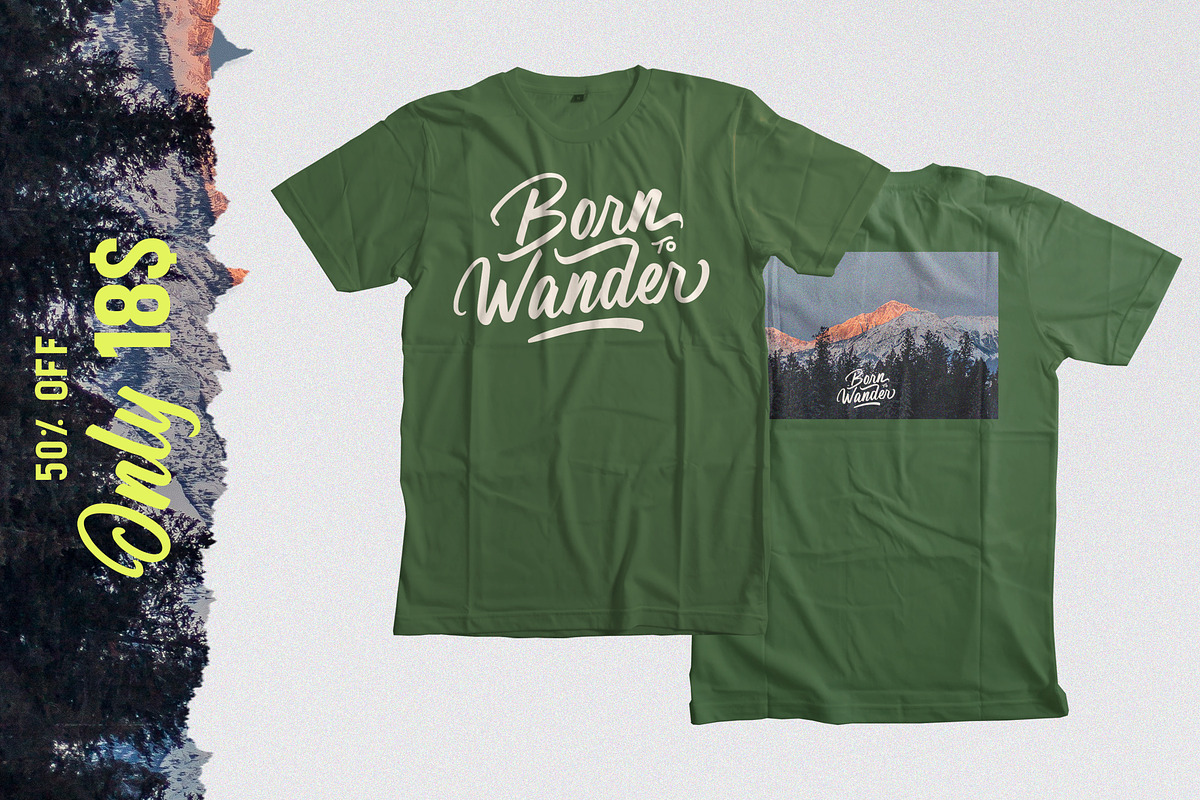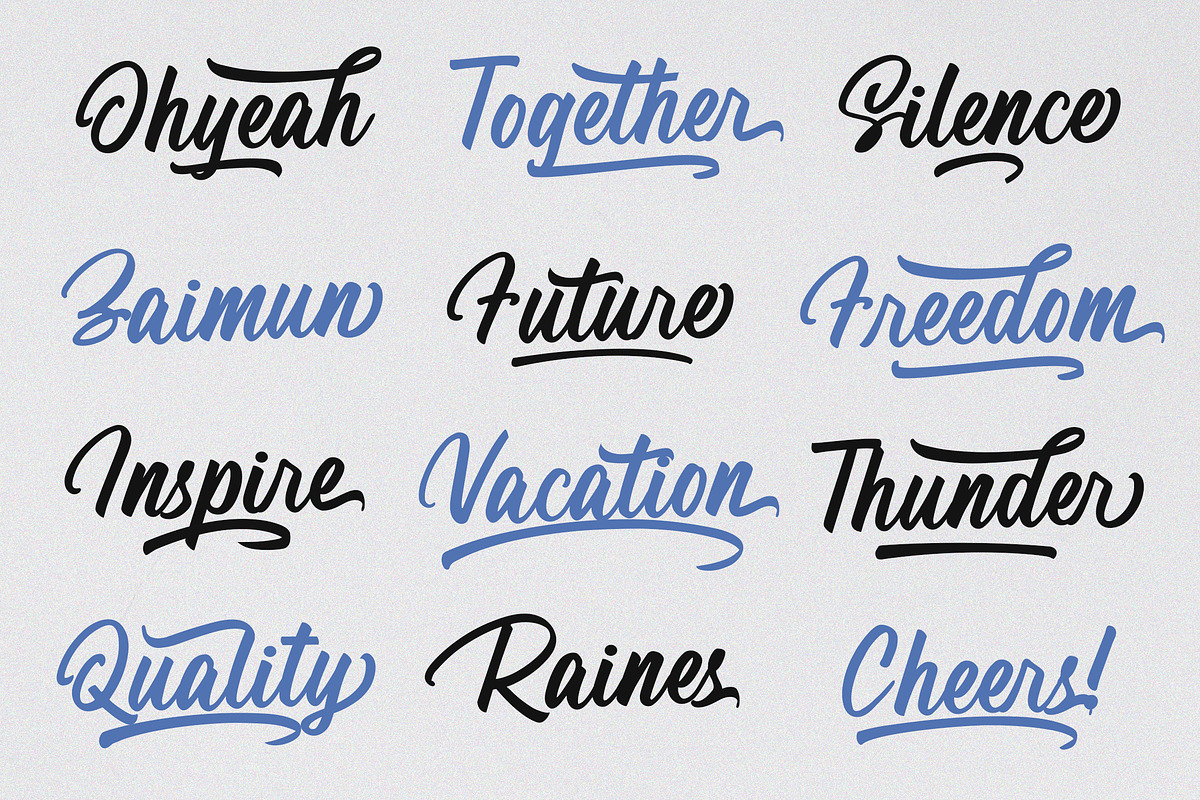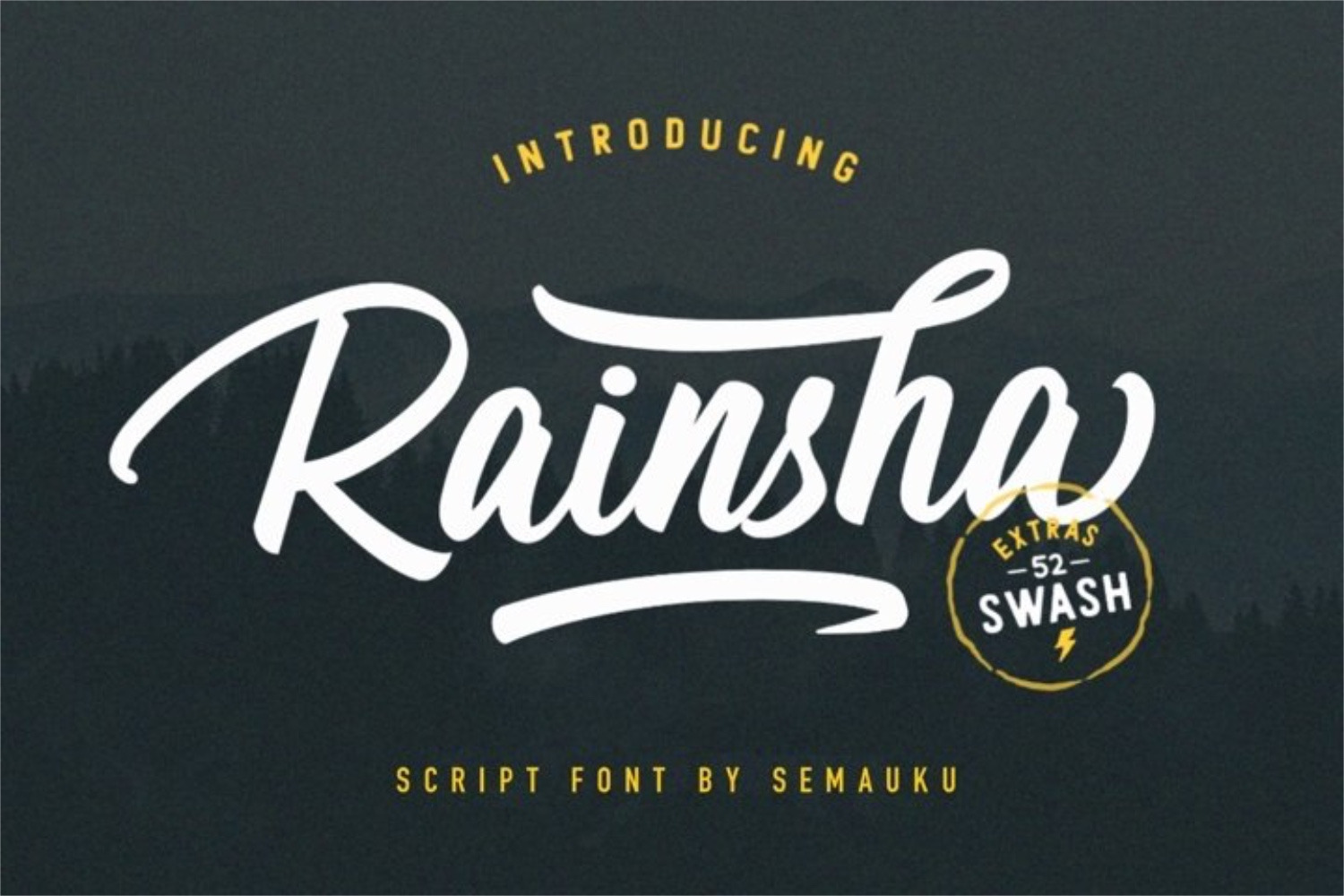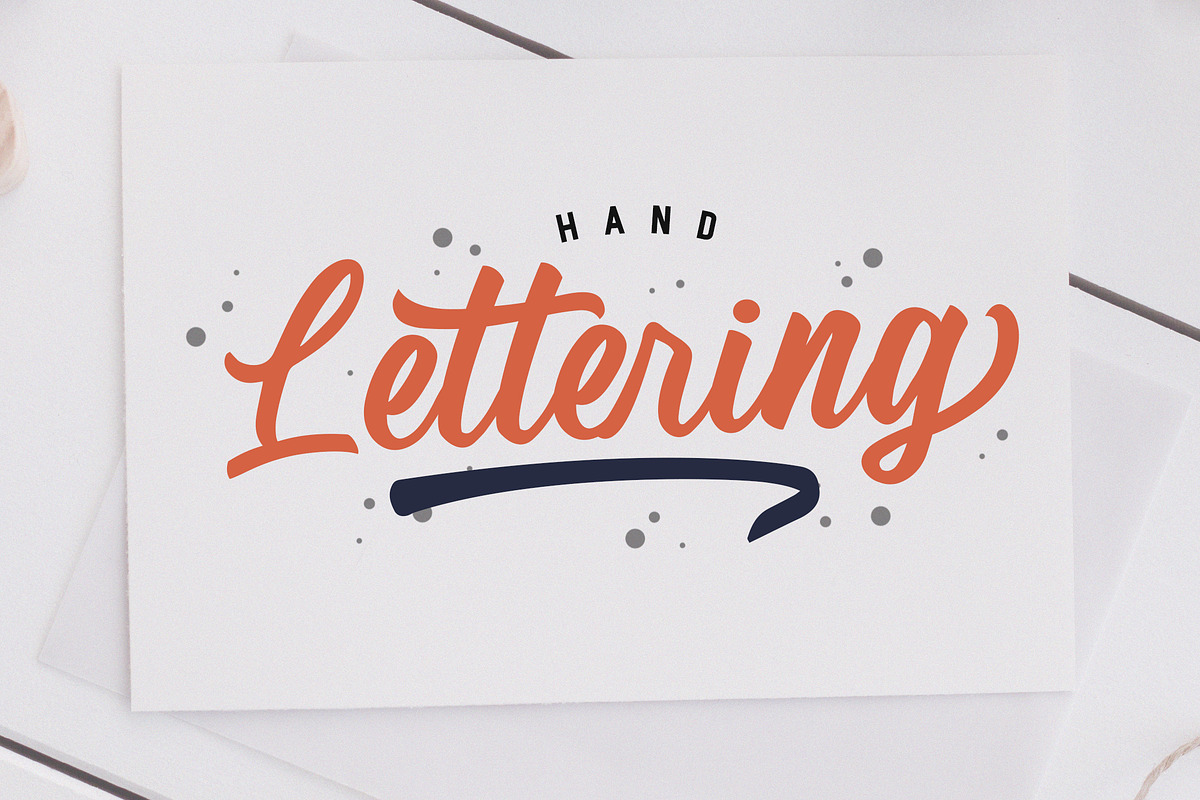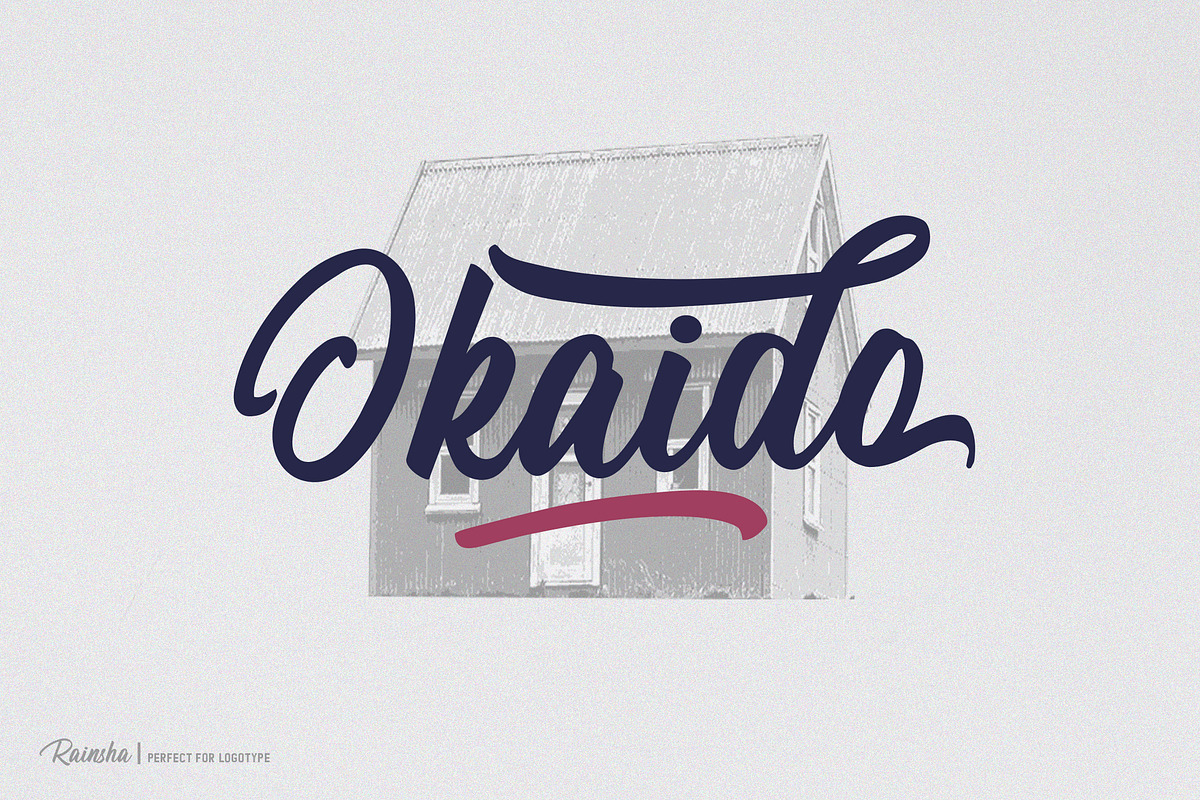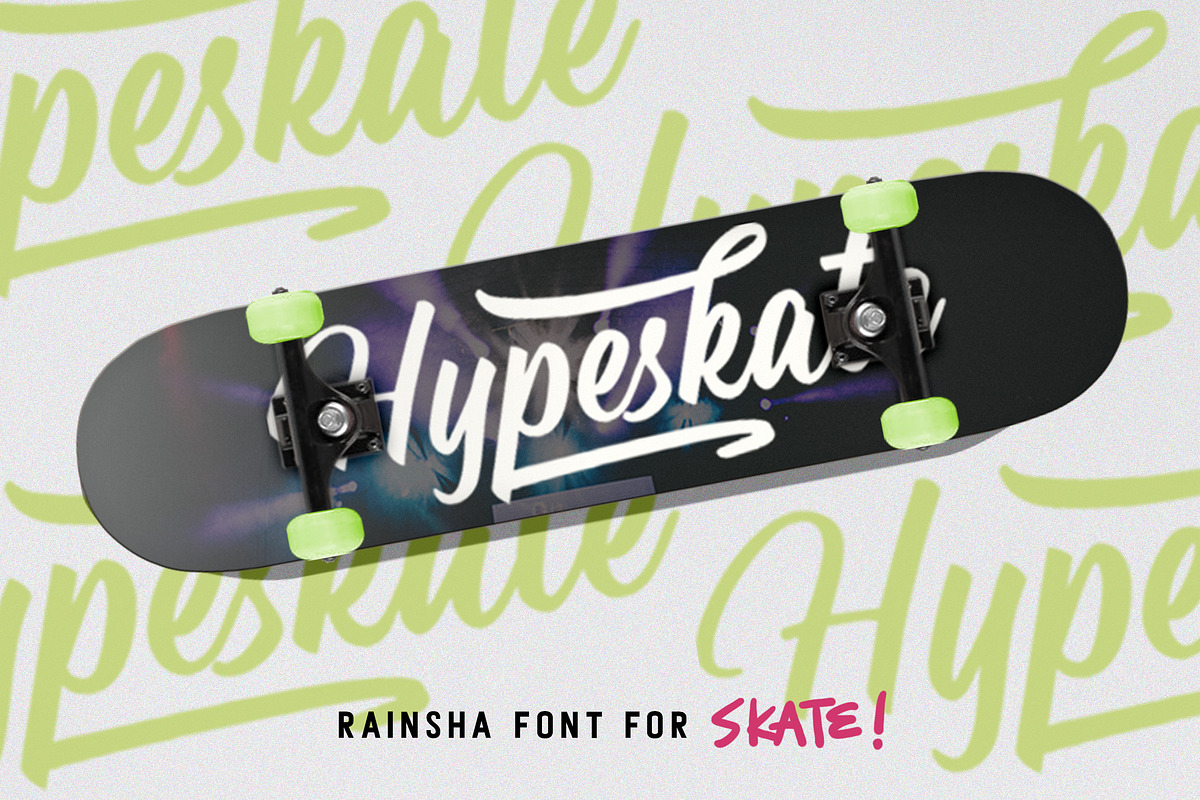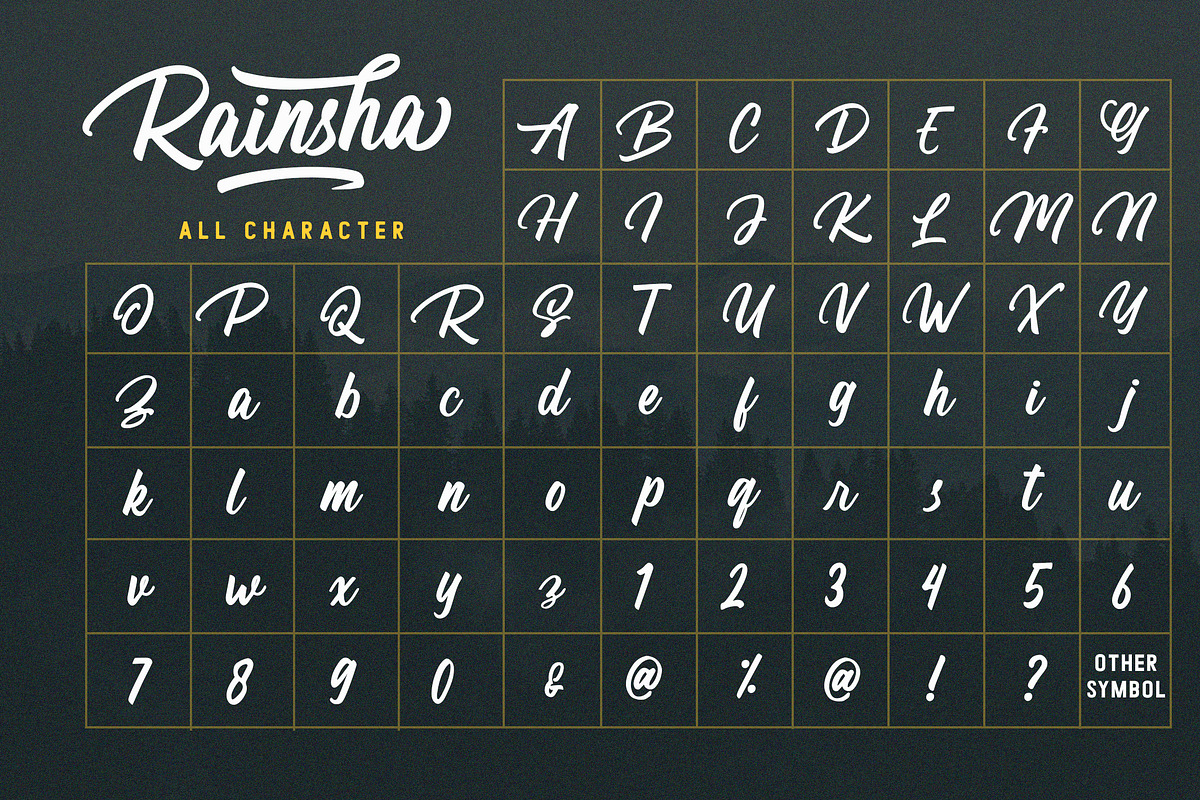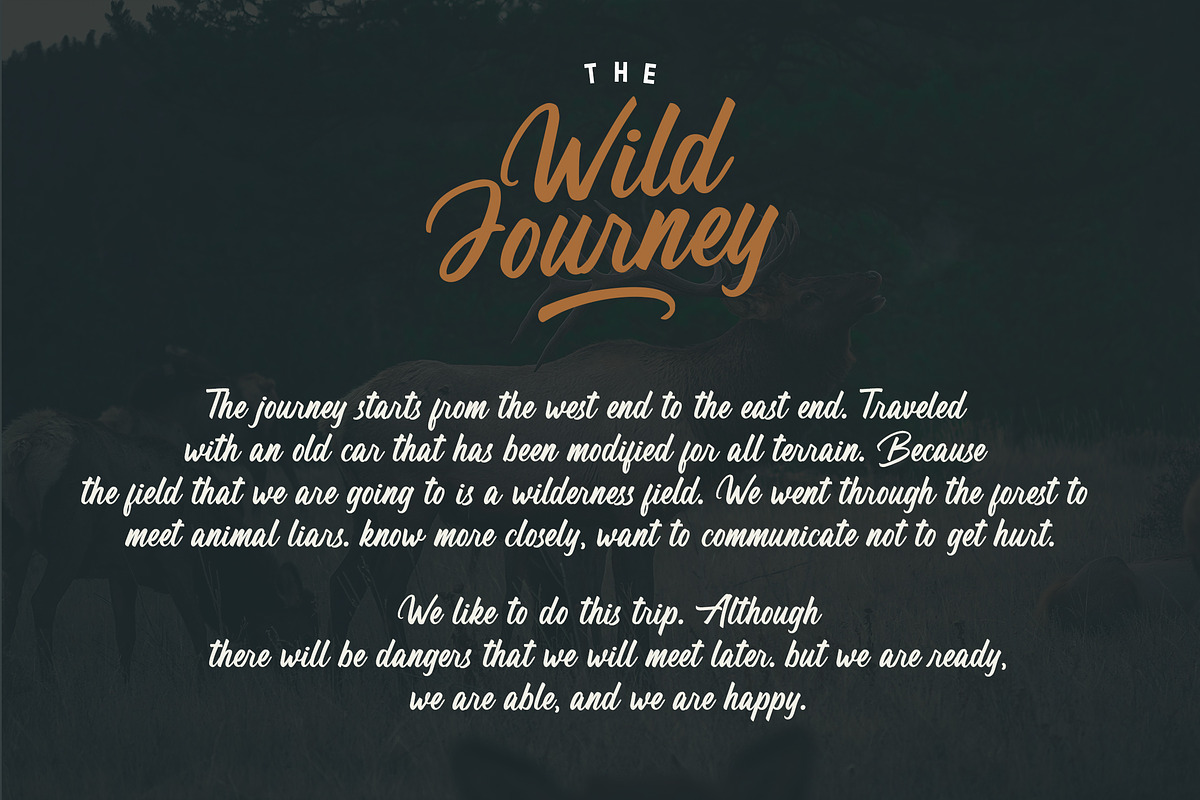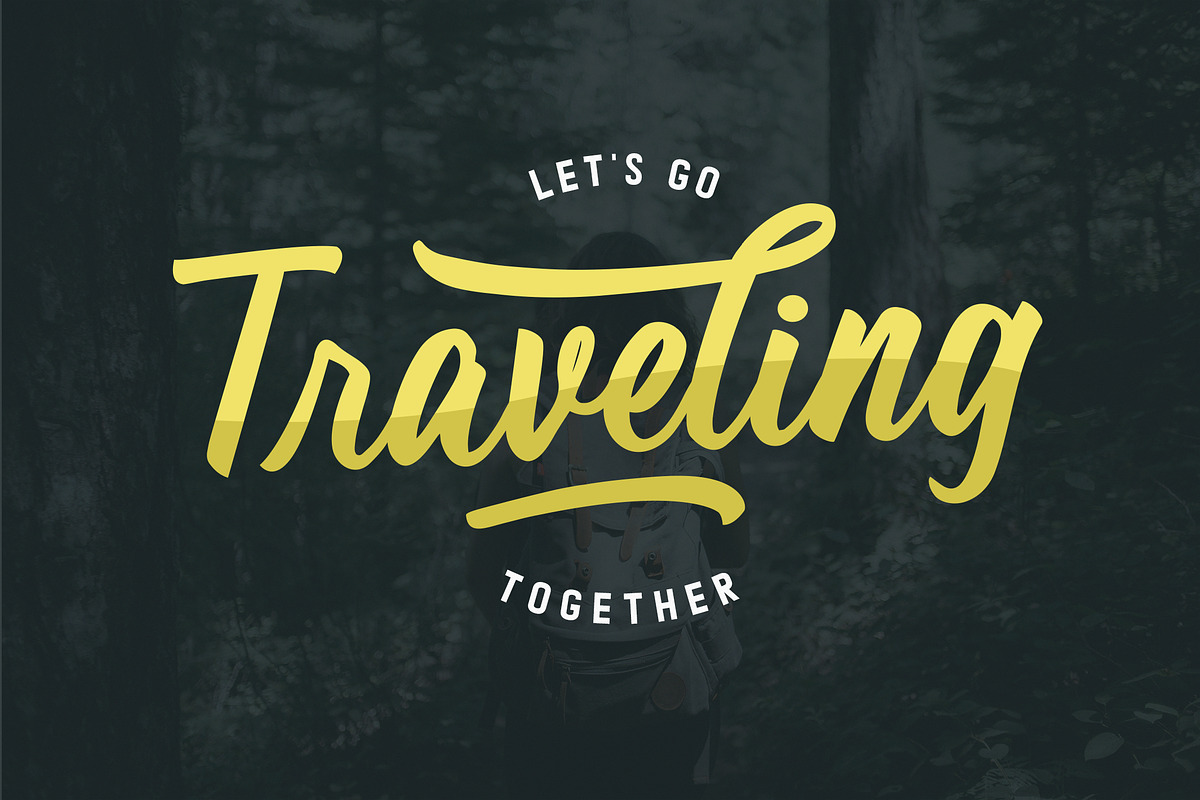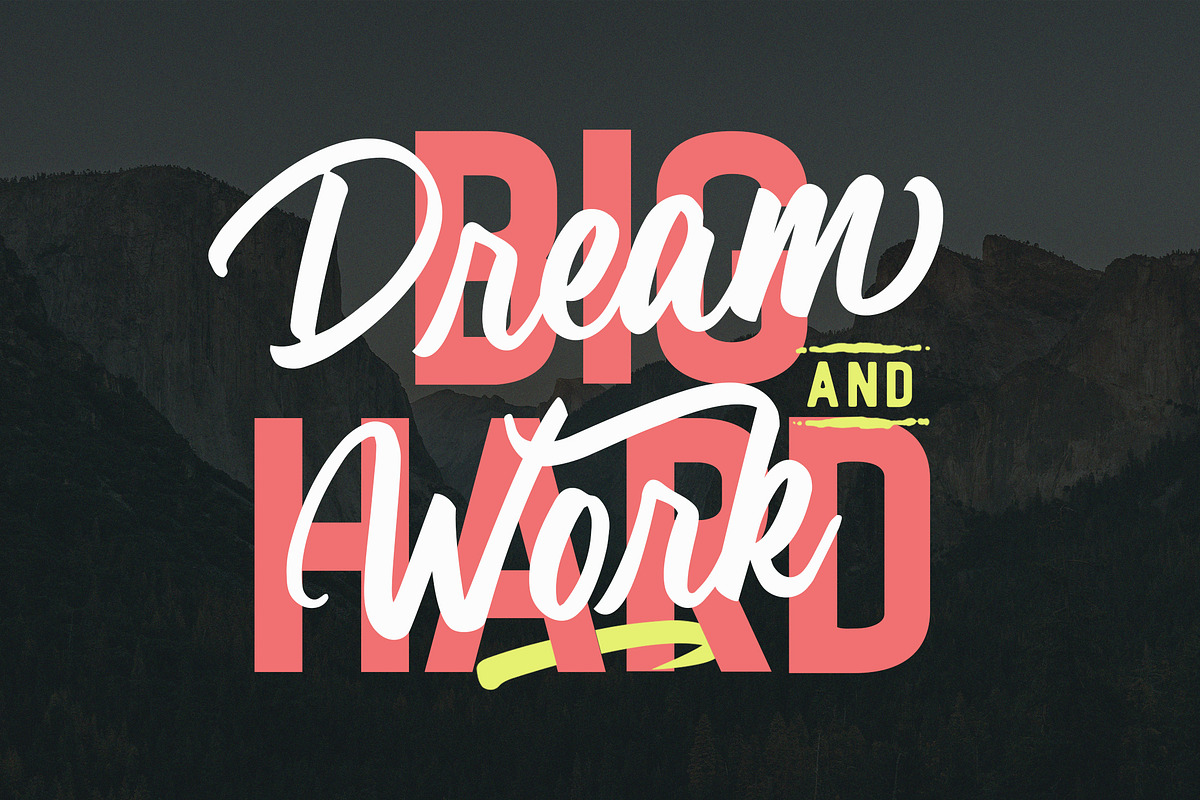
Rainsha | Script Font
Proudly Present, font scripts that are ready to complement your creative design. Introduce Rainsha Font
Rainsha Fonts are great for your creative projects, such as logos, print quotes, invitations, cards, product packaging, headers, letterheads, posters, clothing designs, merchandise etc.
Rainsha fonts come with uppercase, lowercase letters, numbers, punctuation, mulrilingual support and alternating oppypes. Apart from that the rainsha font is also an extra 52 swash bonus.